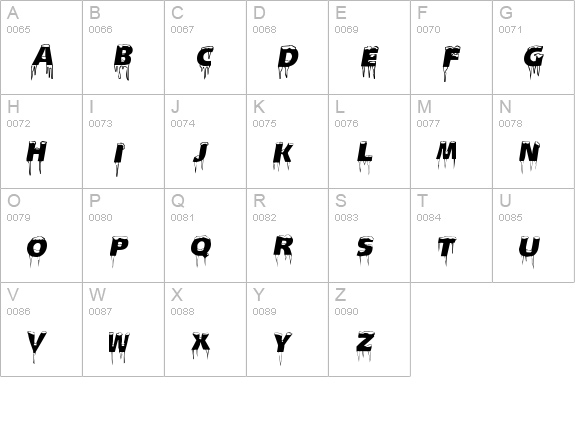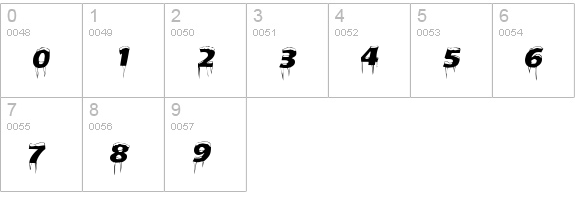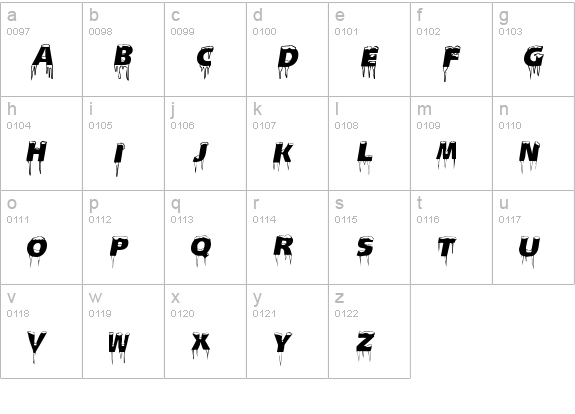
Ice Caps Font Details
Ice Caps is a stunningly unique and versatile font that effortlessly captures the essence of icy landscapes. Its crisp and sharp letterforms resemble the jagged edges of glaciers, creating a sense of coolness and serenity. With its clean lines and modern aesthetic, Ice Caps is perfect for a wide range of design projects, from logos and branding to posters and invitations. What sets Ice Caps apart is not only its captivating design, but also the fact that it is completely free. Yes, you read that right! Ice Caps is freely available to download at FontsMarket.com, making it accessible to designers and creatives of all levels. Whether you are a professional graphic designer searching for a fresh and eye-catching font or a hobbyist looking to experiment with typography, Ice Caps is the ideal choice to add a touch of elegance and sophistication to your creations. The versatility of Ice Caps extends beyond its captivating appearance. This font supports multilingual characters, allowing you to convey your message in various languages seamlessly. Its legibility, even at smaller sizes, ensures that your text remains clear and readable, no matter the context. Ice Caps is more than just a font; it is a creative tool that empowers you to bring your visions to life. Its fluid and modern design, combined with its accessibility and versatility, make it a must-have for any designer's toolkit. So why wait? Head over to FontsMarket.com now and download Ice Caps for free, and unlock a world of creative possibilities.